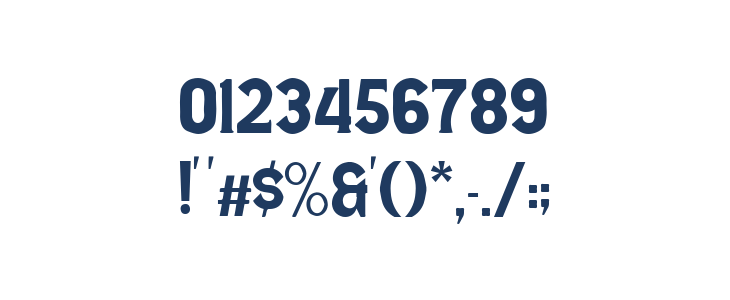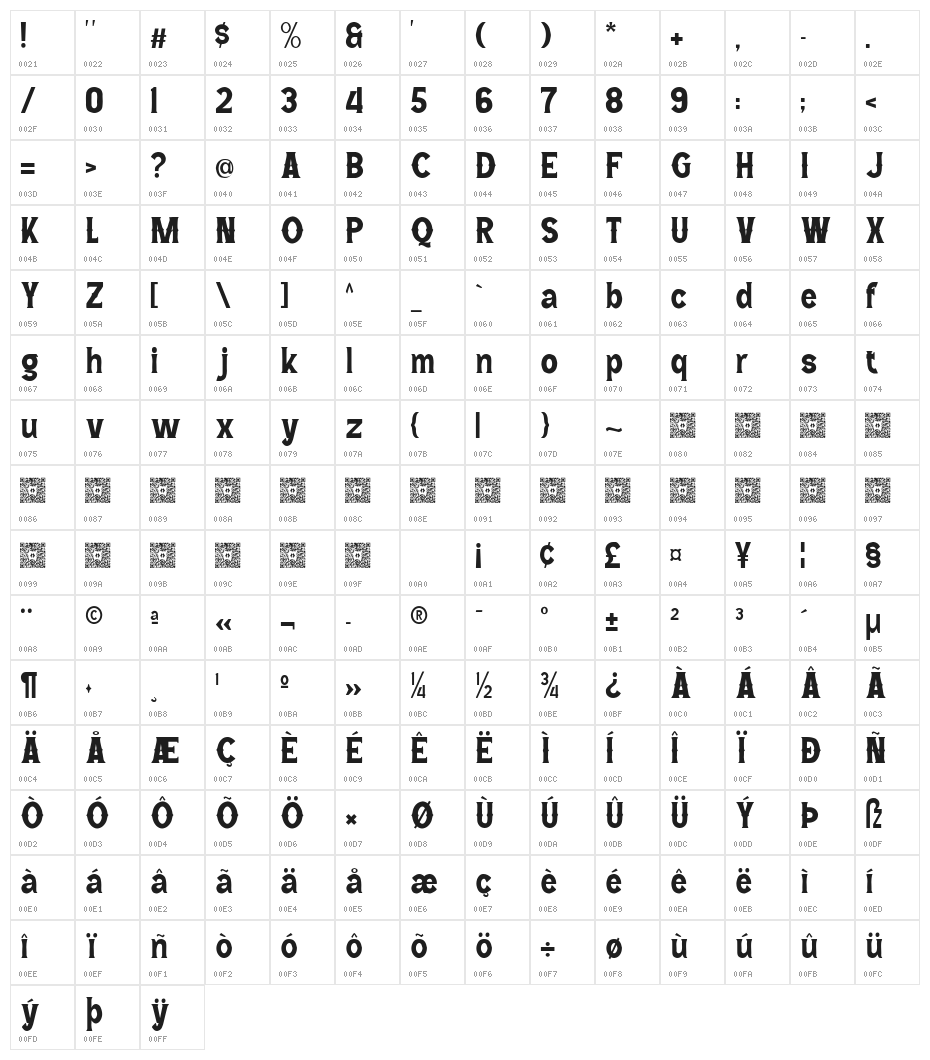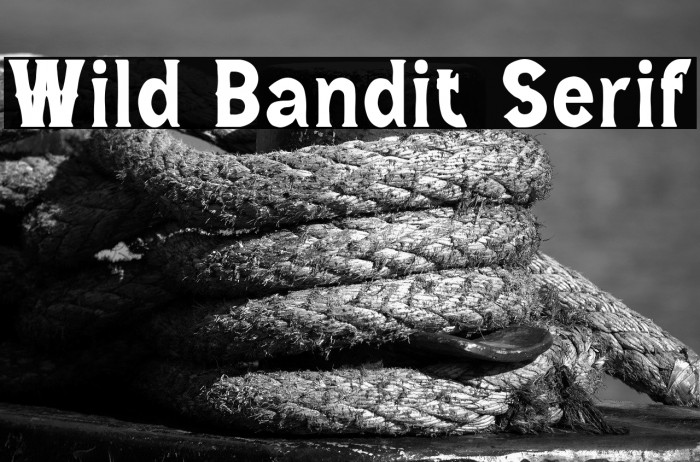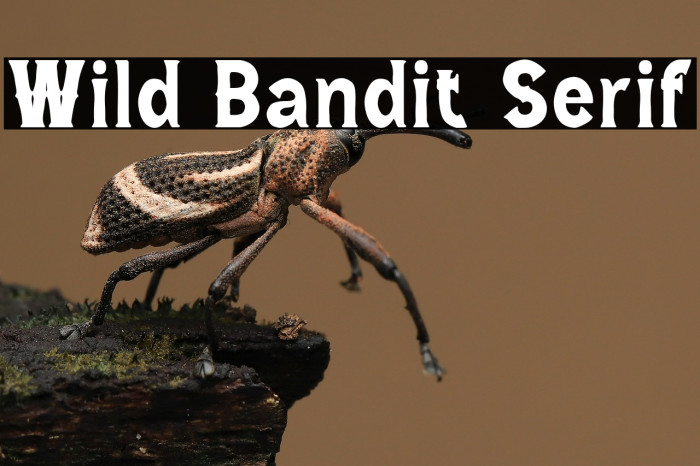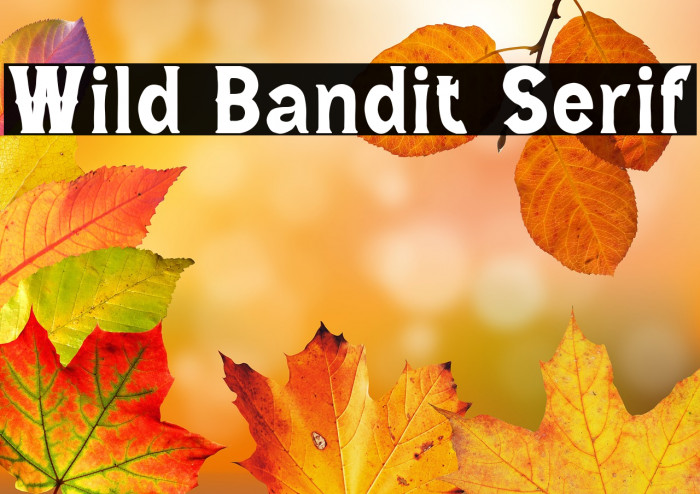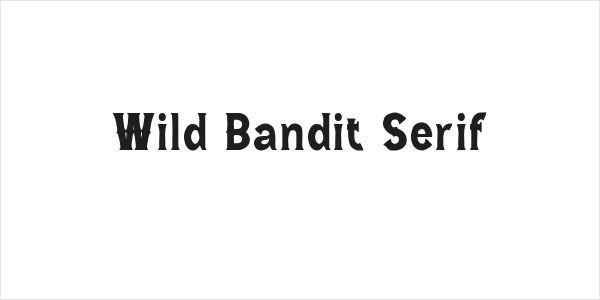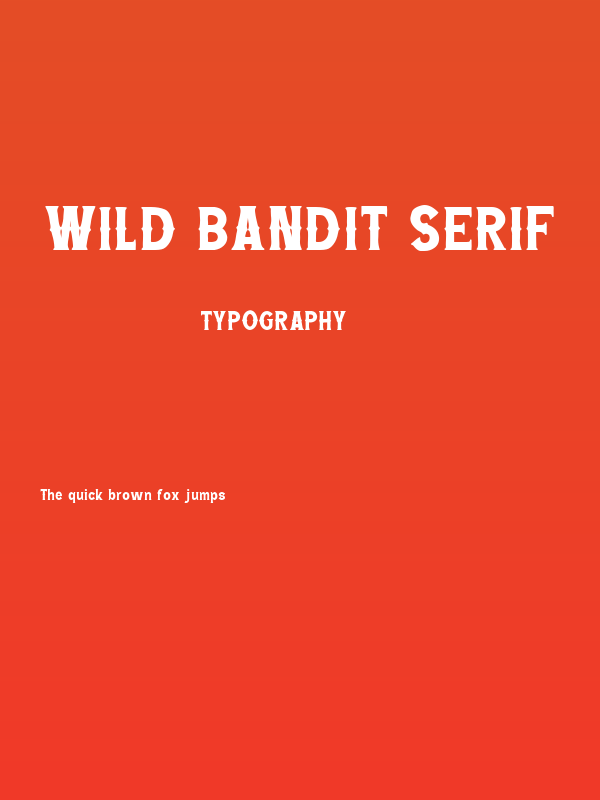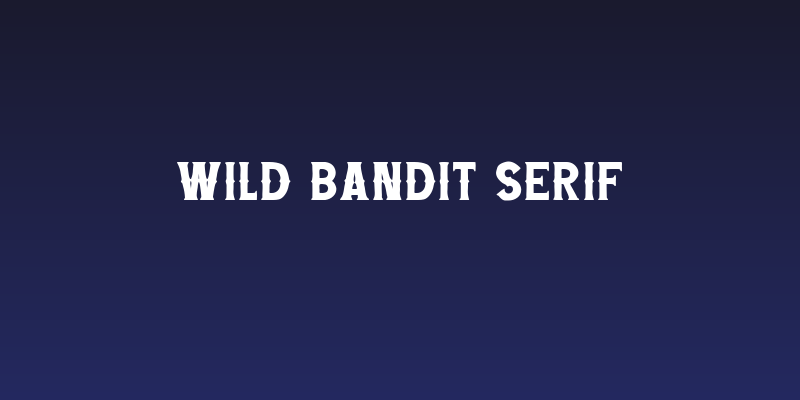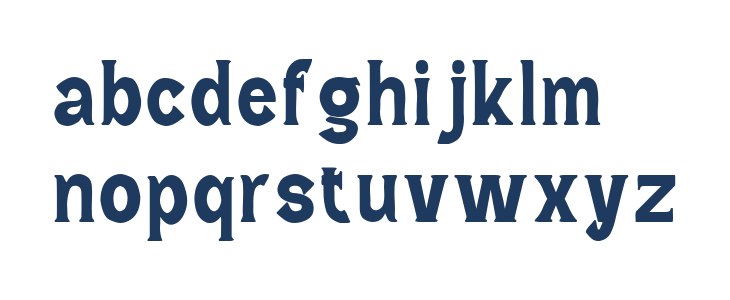
Wild Bandit Serif Font
Wild Bandit Serif Description
This font exudes a bold and adventurous spirit, characterized by its strong, thick strokes and distinctive serif details. The uppercase letters are robust and commanding, while the lowercase letters maintain a consistent weight, offering a harmonious balance. The numerals are equally bold, ensuring they stand out in any design. Special characters are crafted with the same attention to detail, making them perfect for adding emphasis. This font's unique style is reminiscent of the Wild West, with a touch of modern flair, making it ideal for projects that require a bold, eye-catching typeface.
| Proposed Projects | Ideal for posters, branding, headlines, and any design needing a bold, adventurous touch. |